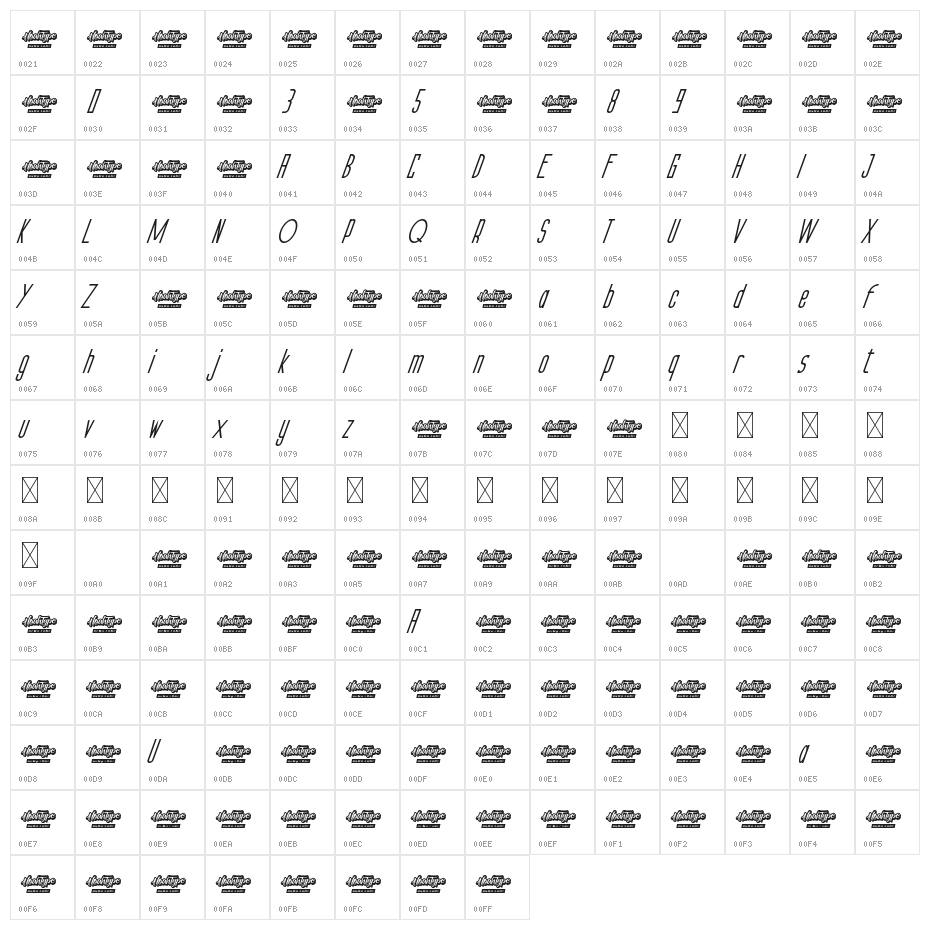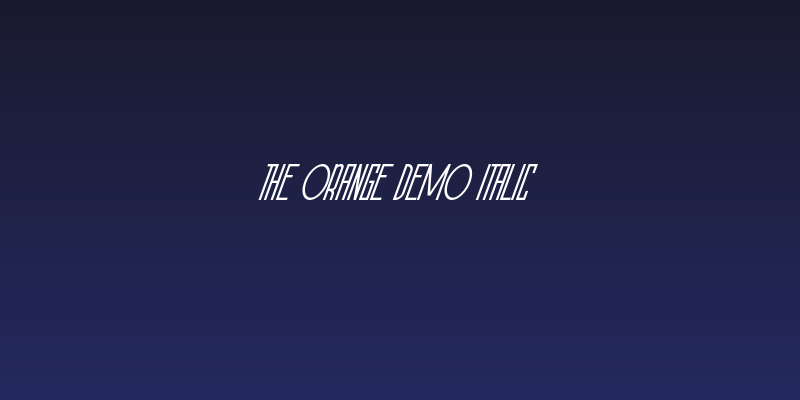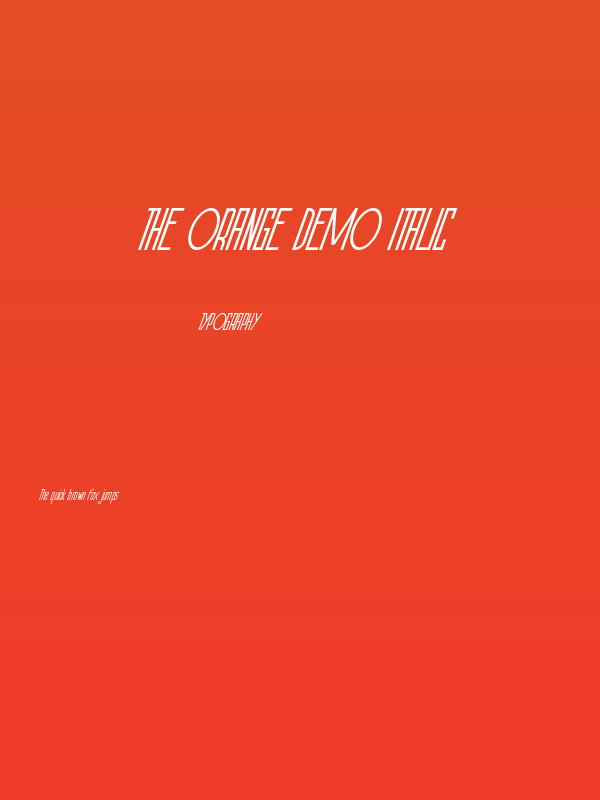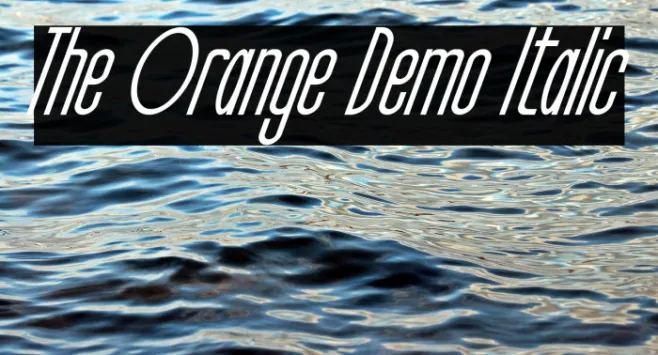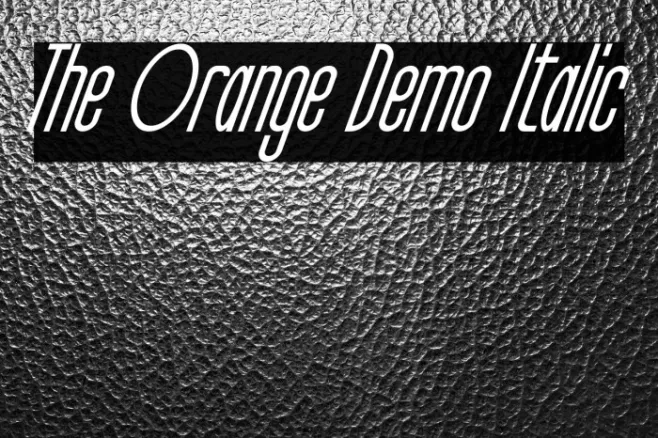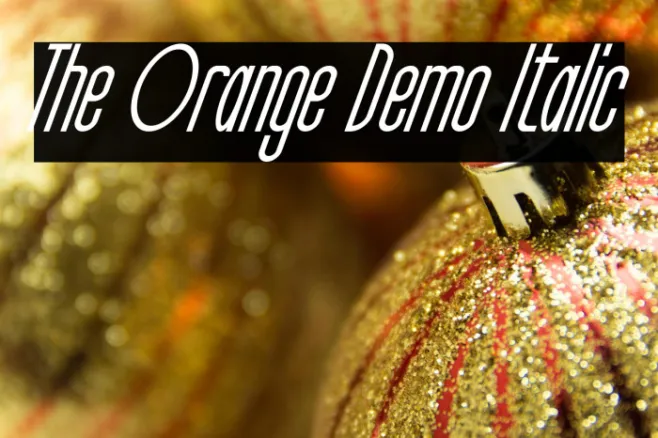
The Orange Demo Italic Font
The Orange Demo Italic Description
This font features a sleek, italicized design with elongated, narrow characters that convey a sense of speed and modernity. The uppercase and lowercase letters maintain a consistent slant, enhancing the dynamic appearance. The numbers and special characters follow the same stylistic cues, ensuring uniformity across all text. The strokes are clean and sharp, with a slight variation in thickness that adds subtle depth without overwhelming the overall aesthetic. This font is well-suited for projects that require a contemporary and energetic feel.